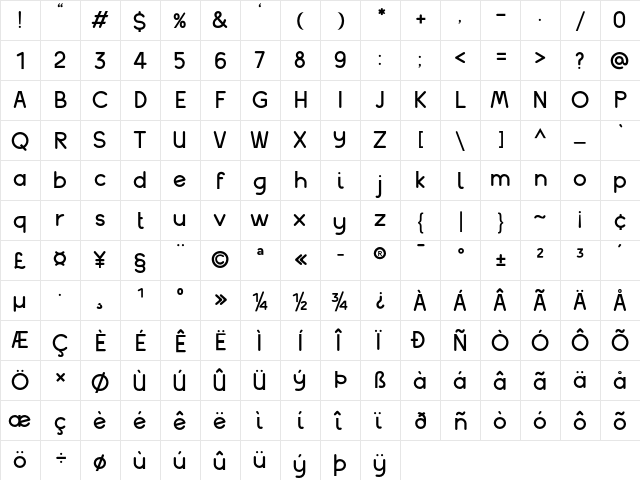
Balakhani Regular
| Foundry | Tural Alisoy |
| Designer | Tural Alisoy |
Design Context for Balakhani Typeface
Balakhani is a composed and adaptable typeface that performs quietly and consistently across a wide range of design contexts.